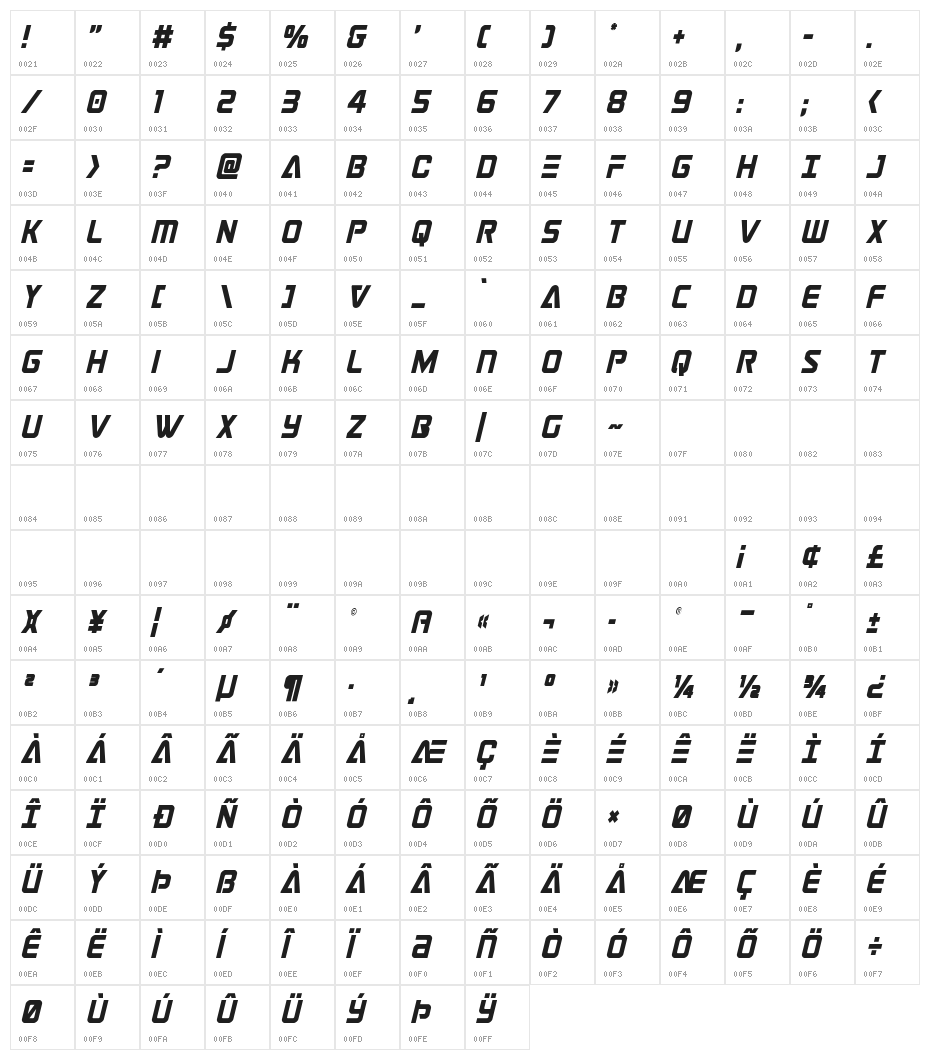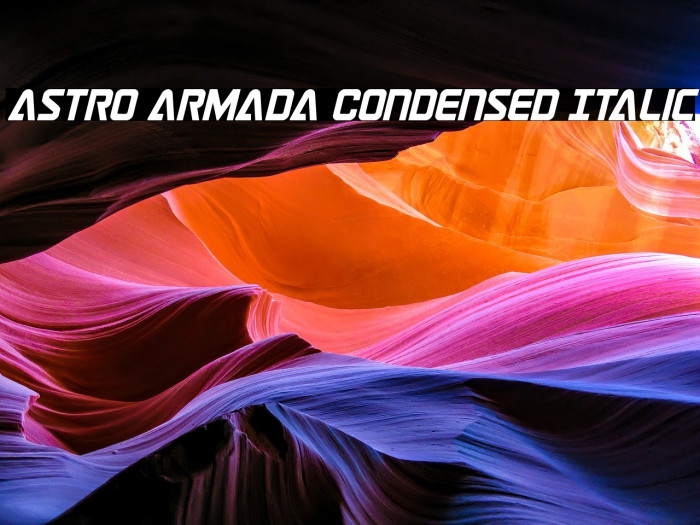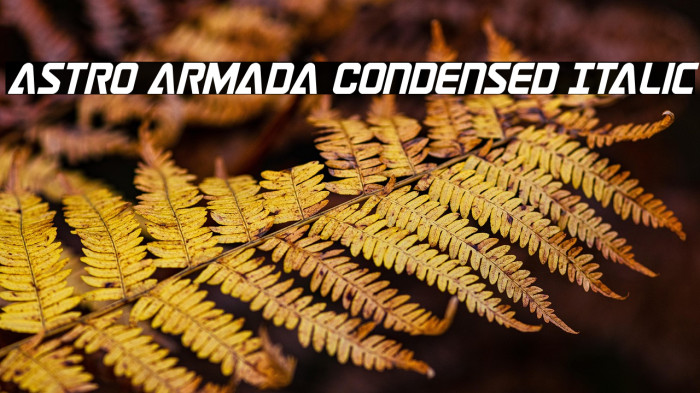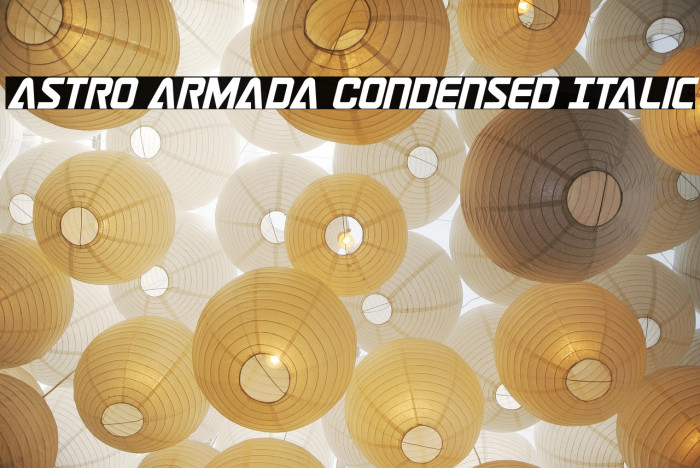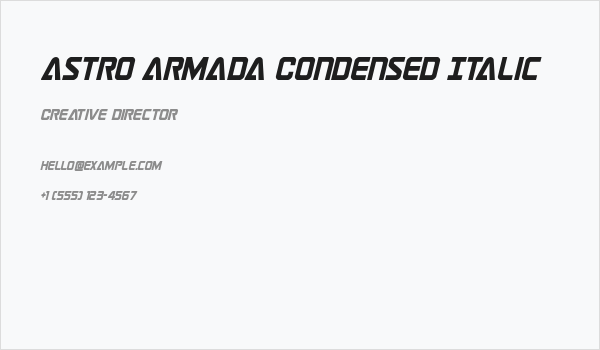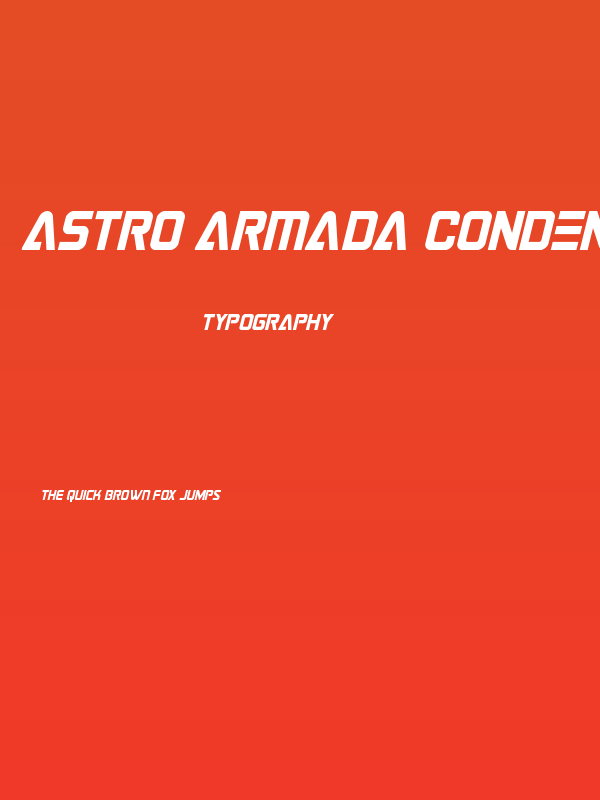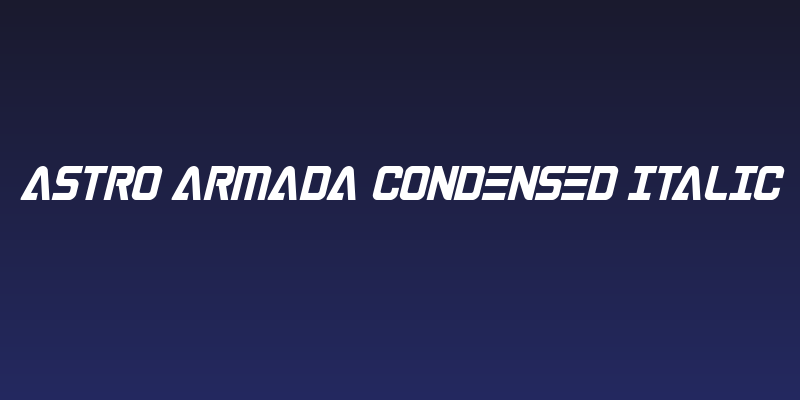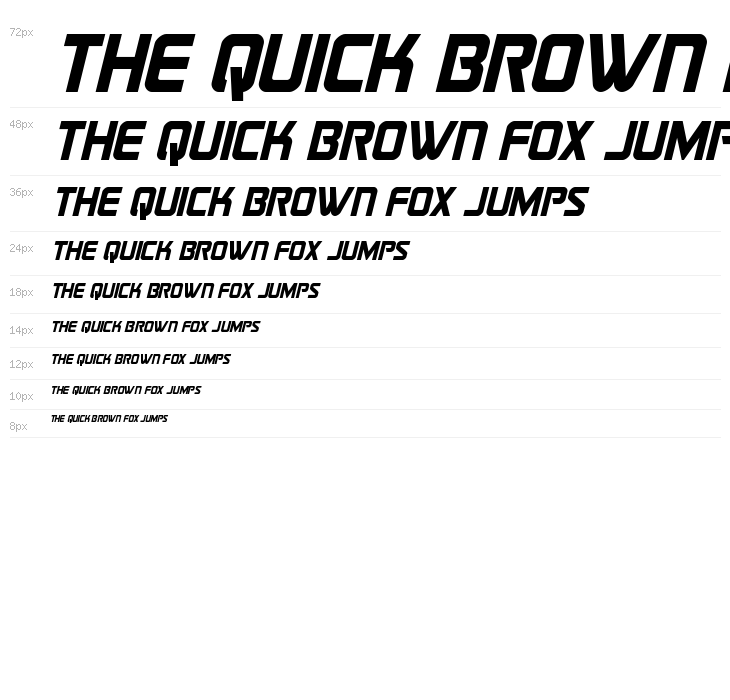
Astro Armada Condensed Italic Font
Astro Armada Condensed Italic Description
This font features a futuristic and dynamic design, characterized by its sharp angles and sleek lines. The condensed form gives it a compact appearance, while the italic style adds a sense of motion and speed. The uppercase letters are bold and impactful, making them ideal for attention-grabbing headlines. The lowercase letters maintain the same angular style, ensuring consistency throughout. The numbers are equally bold and follow the same design principles, making them stand out. Special characters are included, maintaining the overall aesthetic. This font is perfect for projects that require a modern and energetic look.
| Proposed Projects | Ideal for sci-fi themed designs, video game titles, technology branding, and sports team logos. |